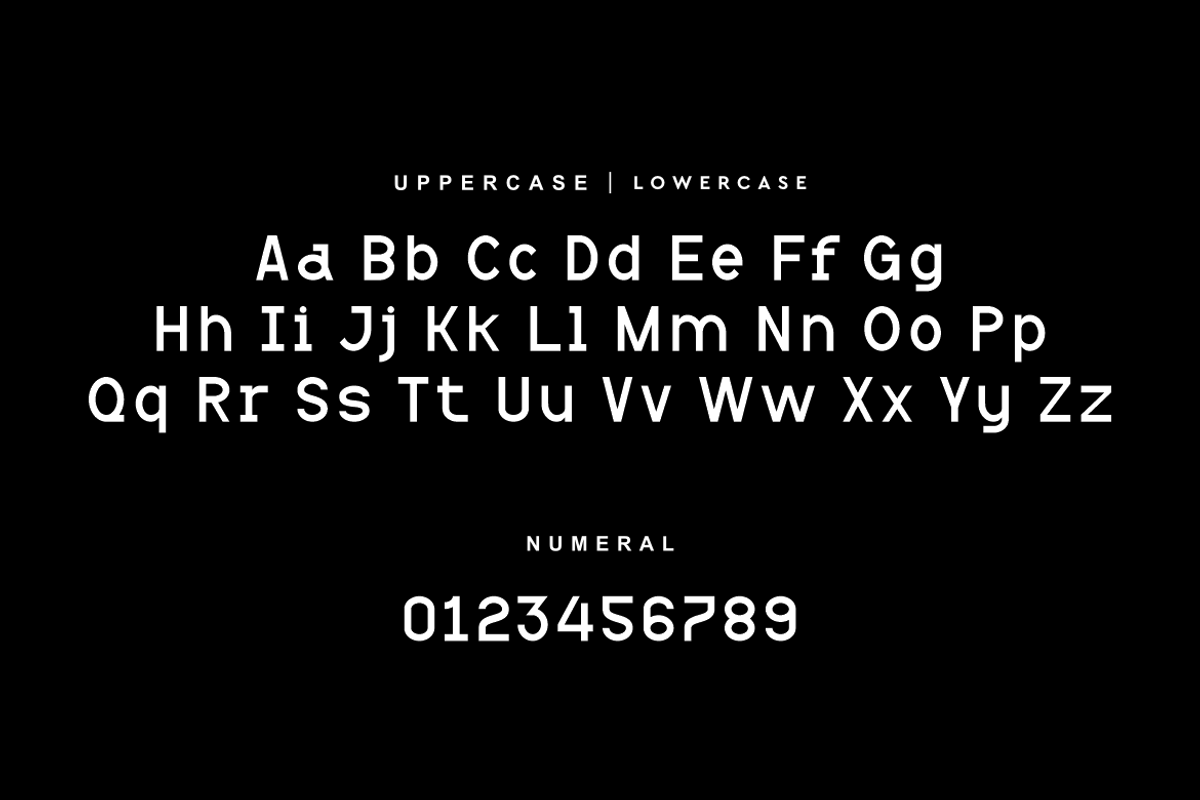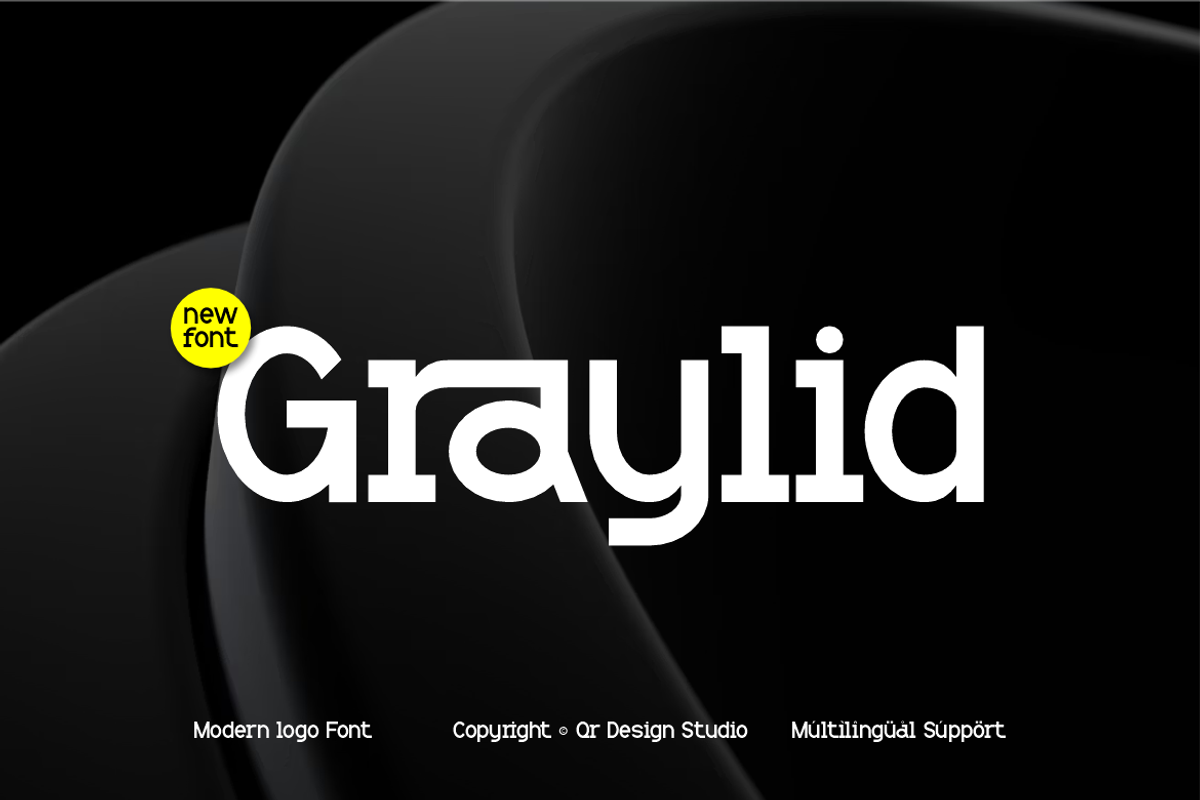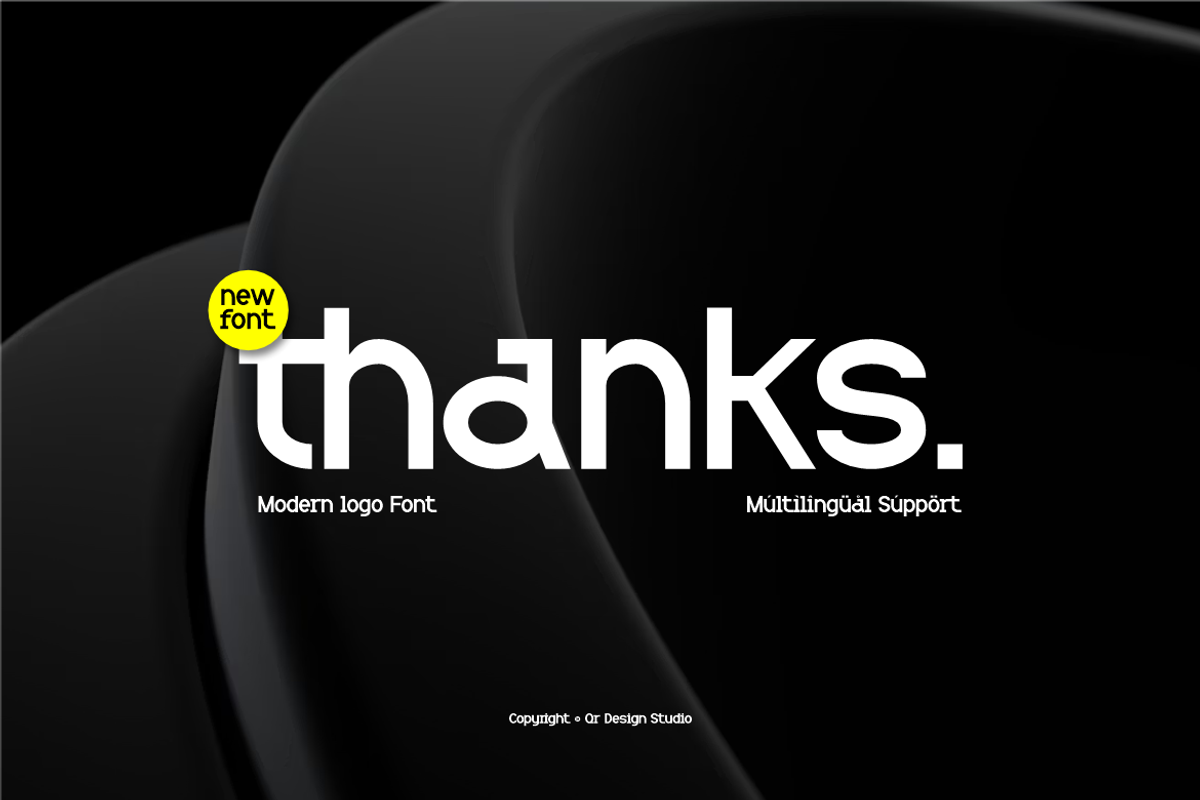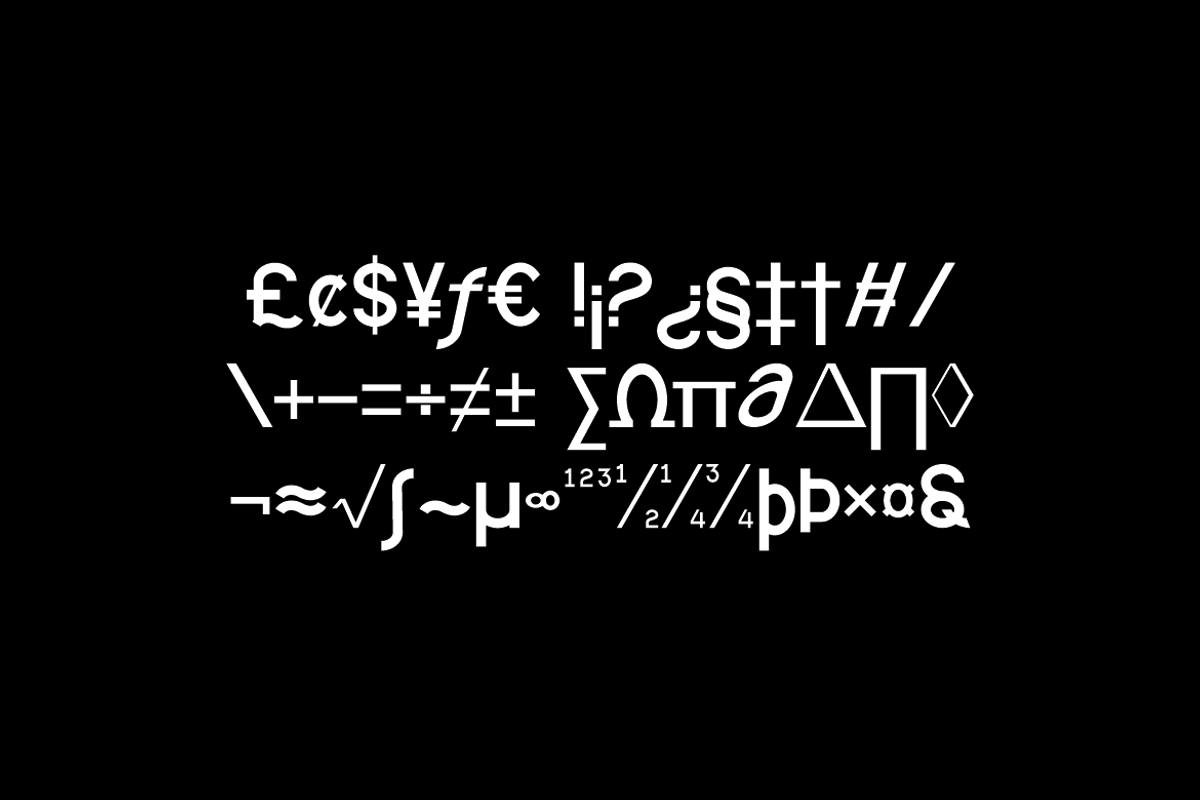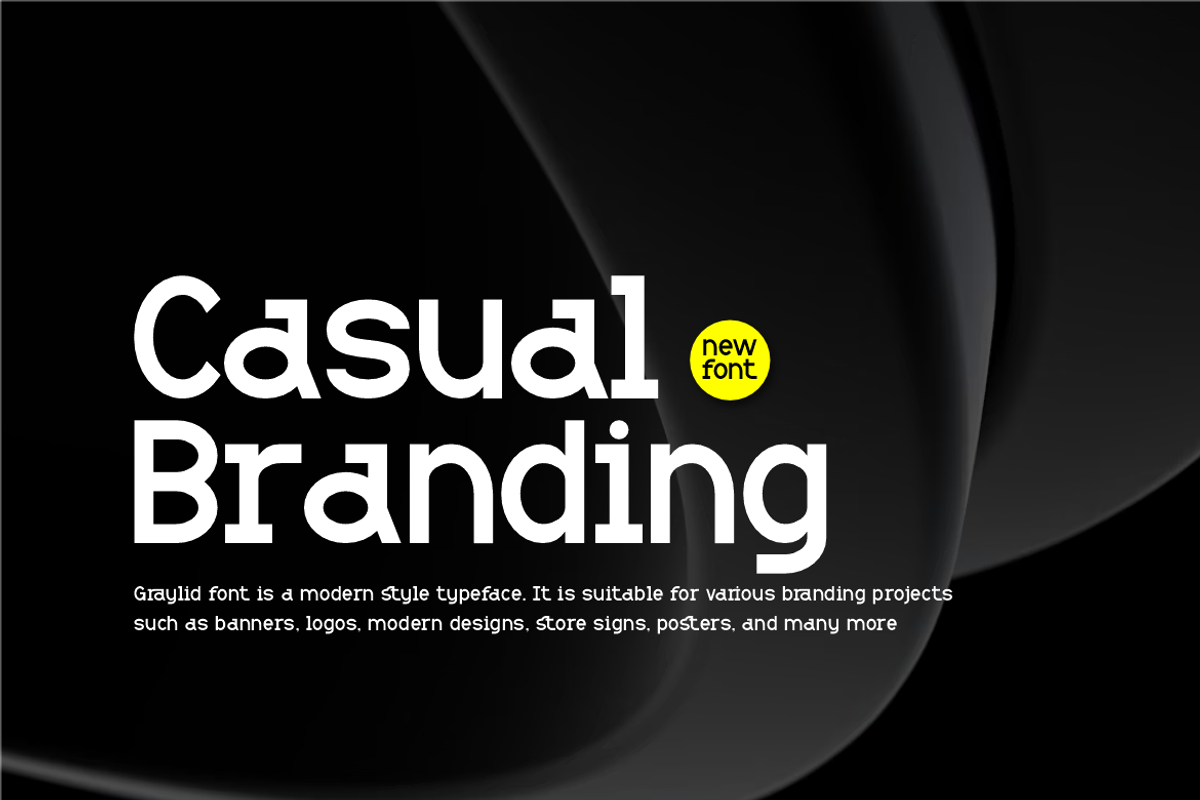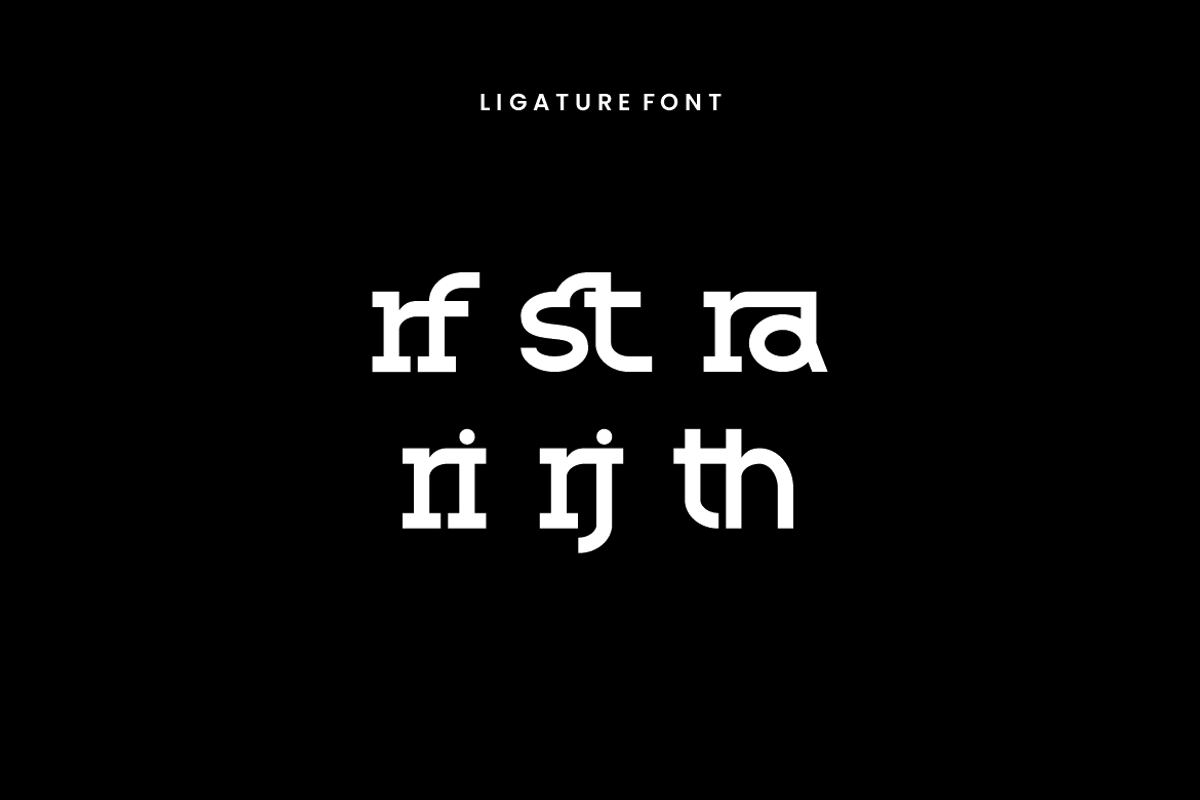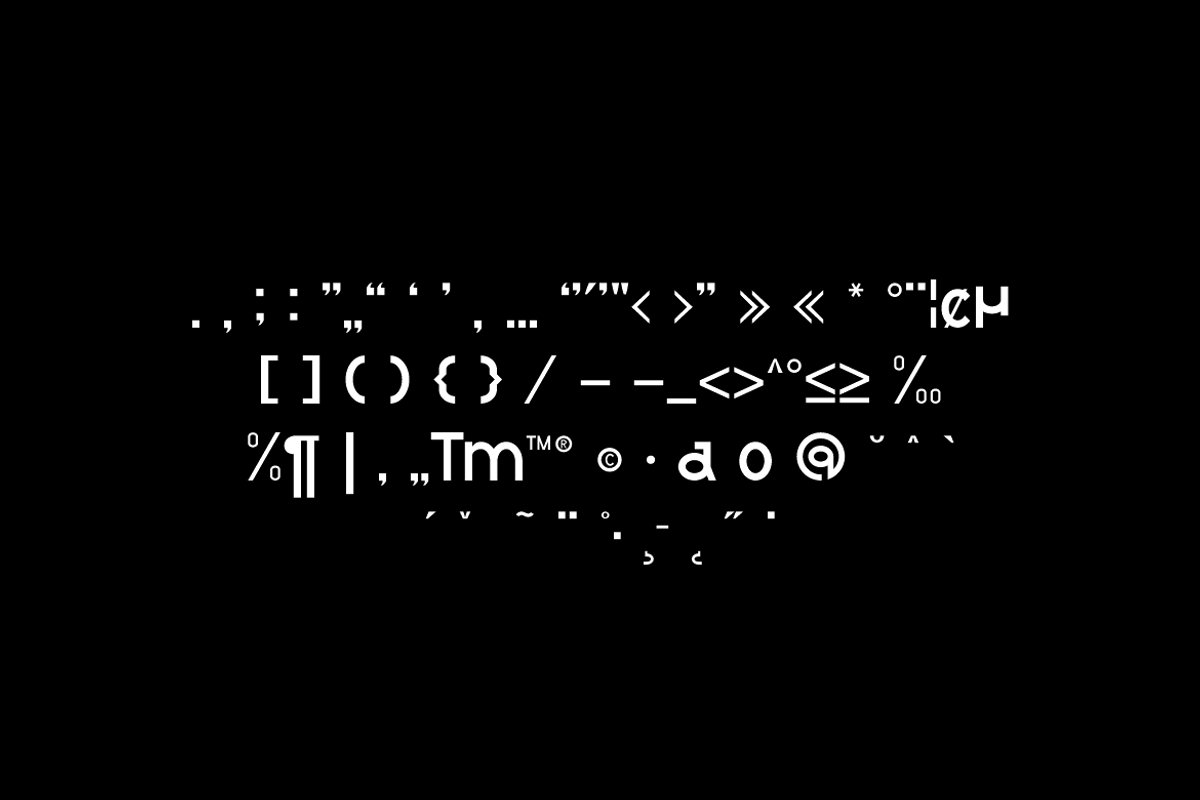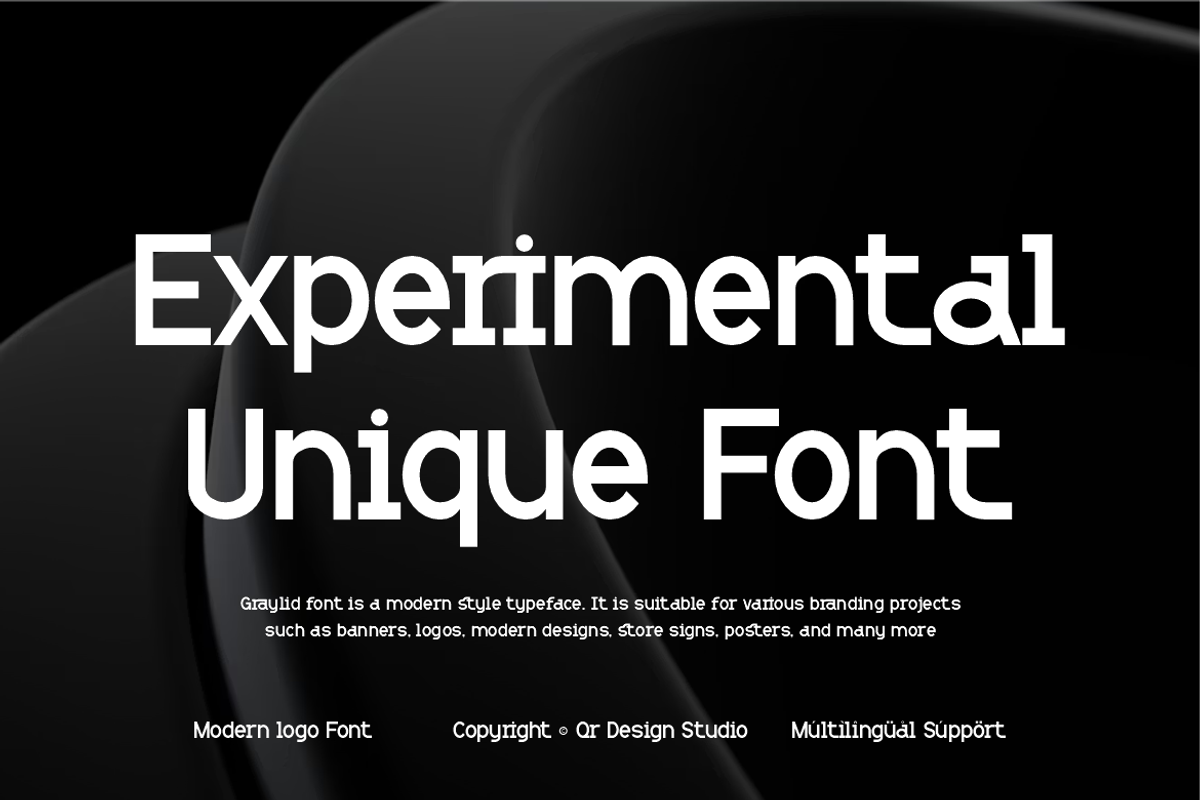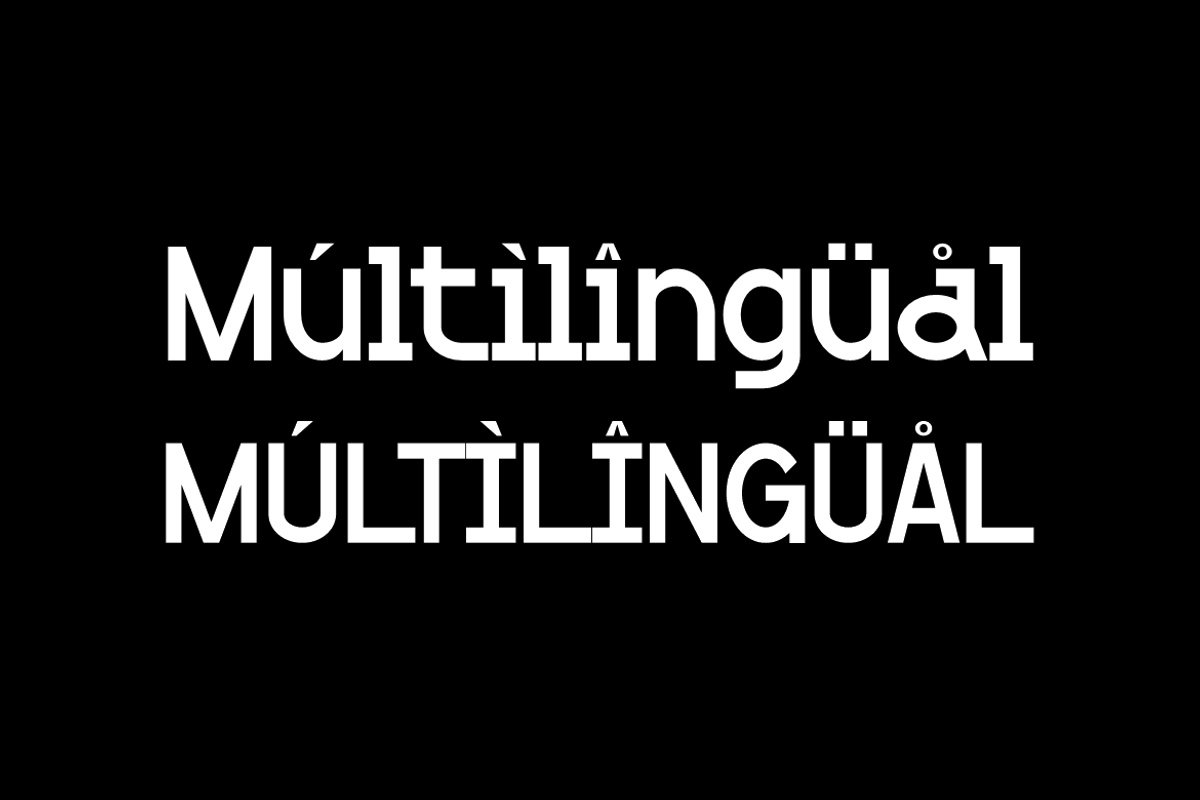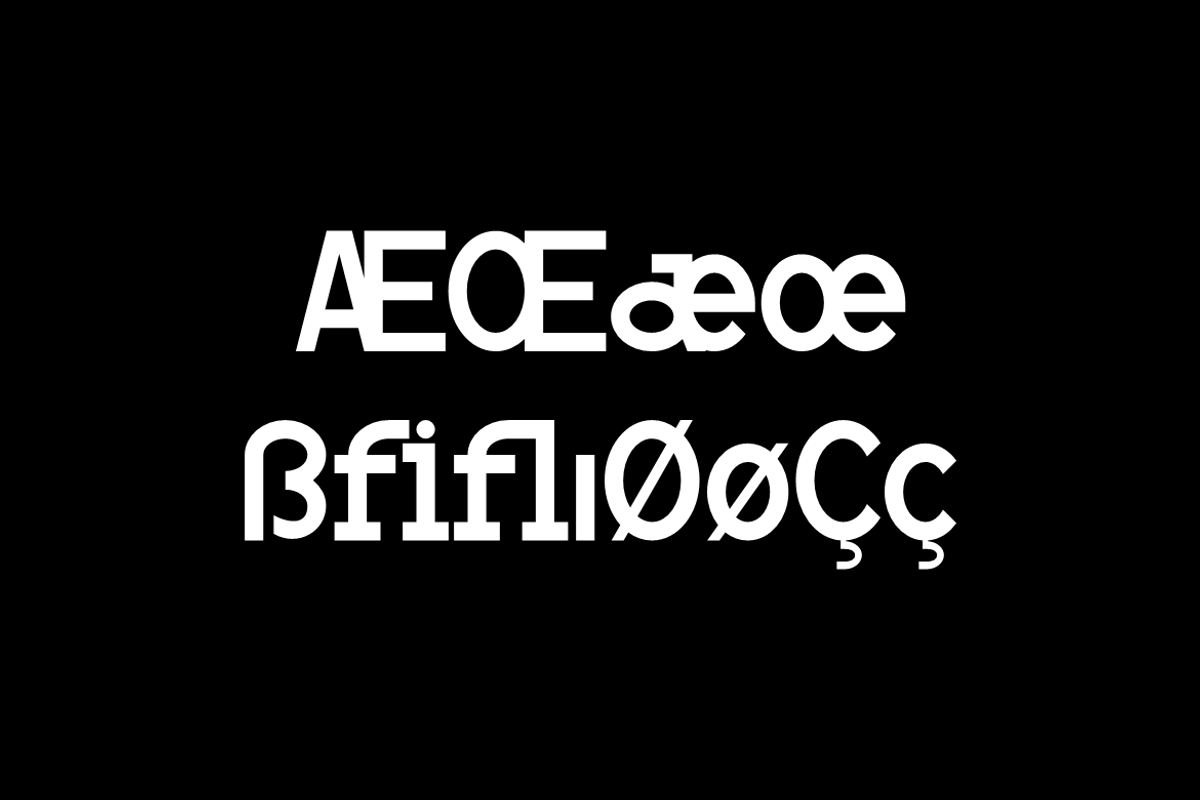
Graylid - Experimental Hybrid Font
Graylid Font is a bold and authentic display typeface. It’s perfect for various branding projects such as logos, sports designs, and more. This font stands out beautifully in a wide range of contexts.